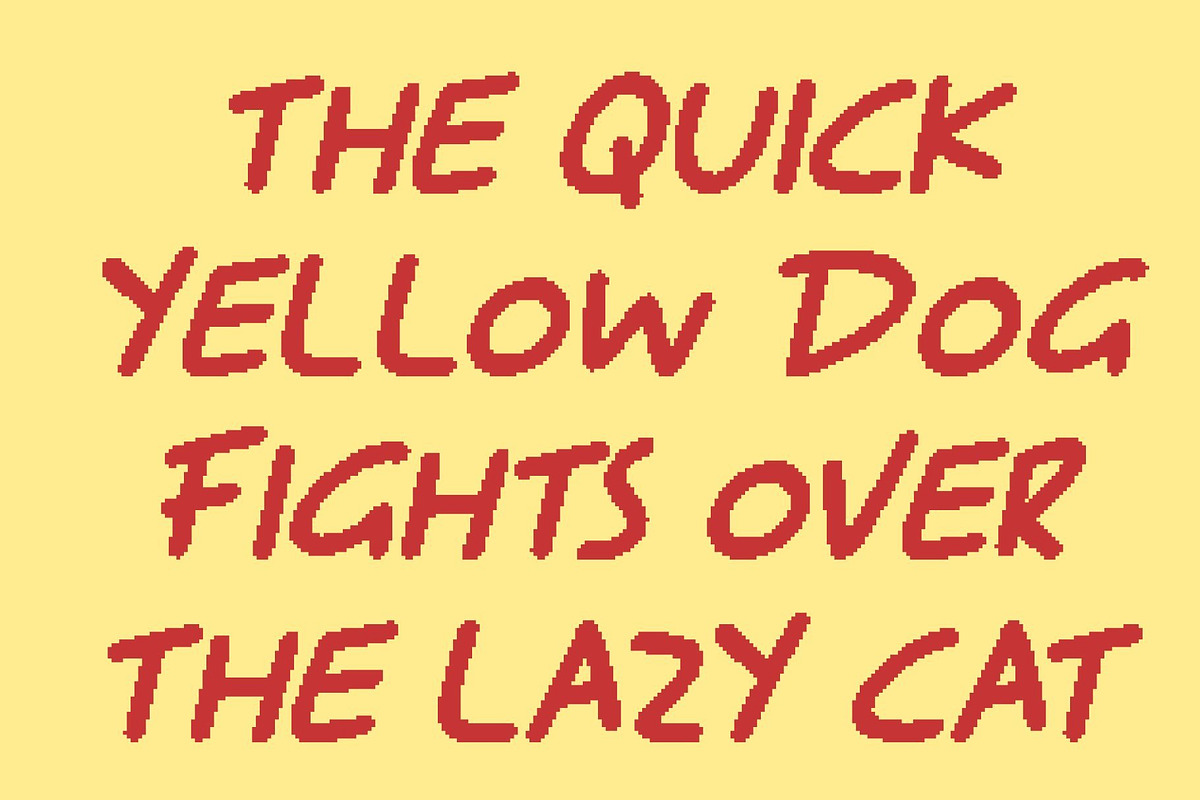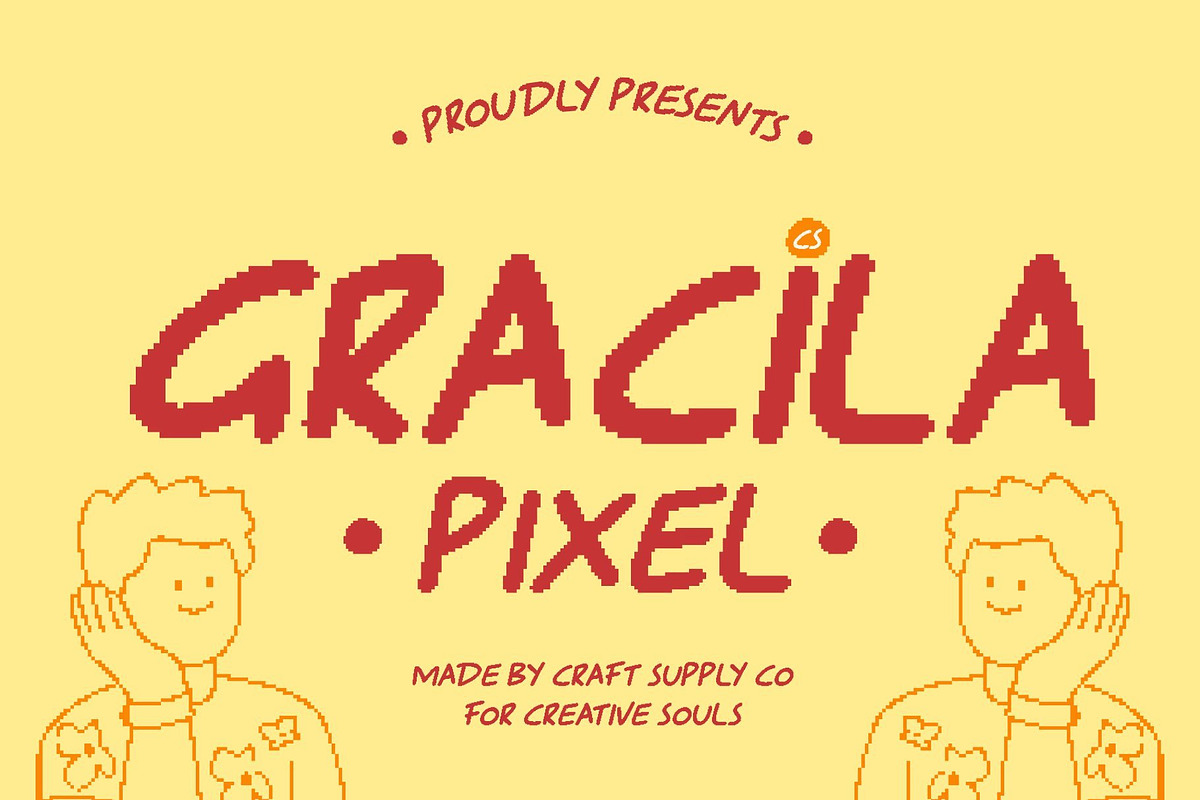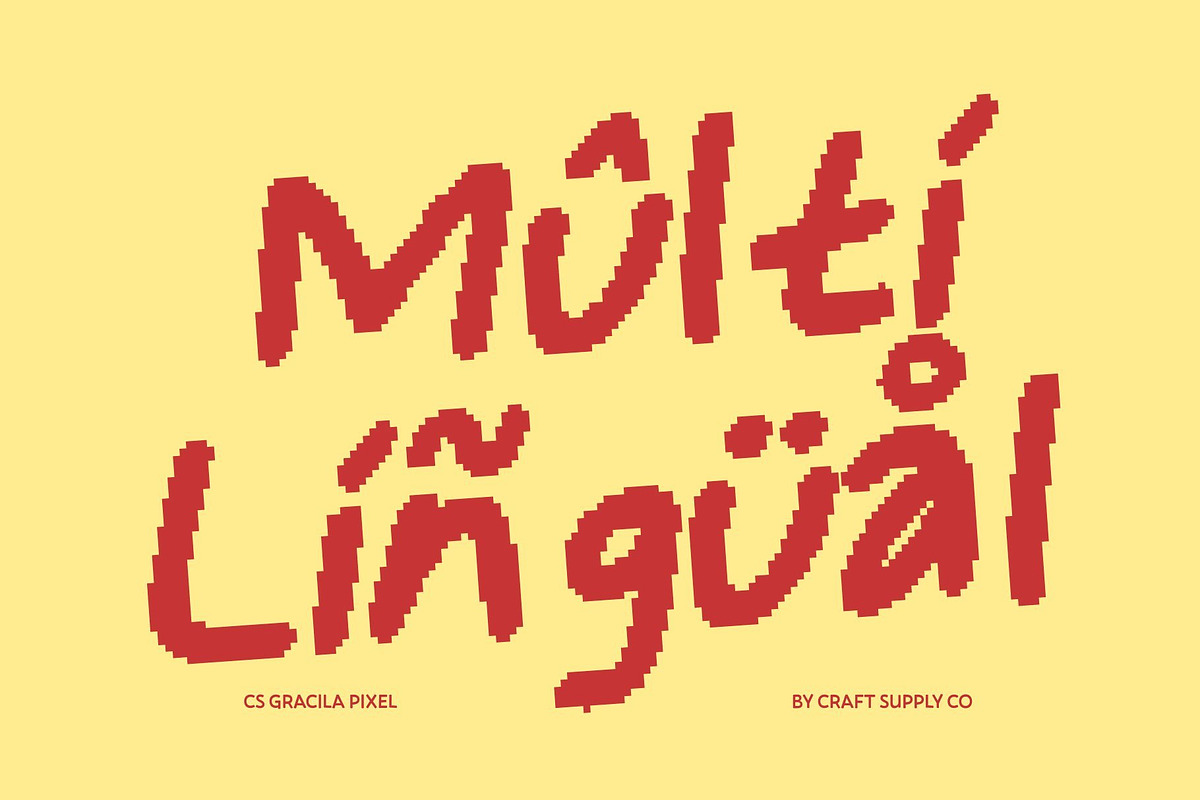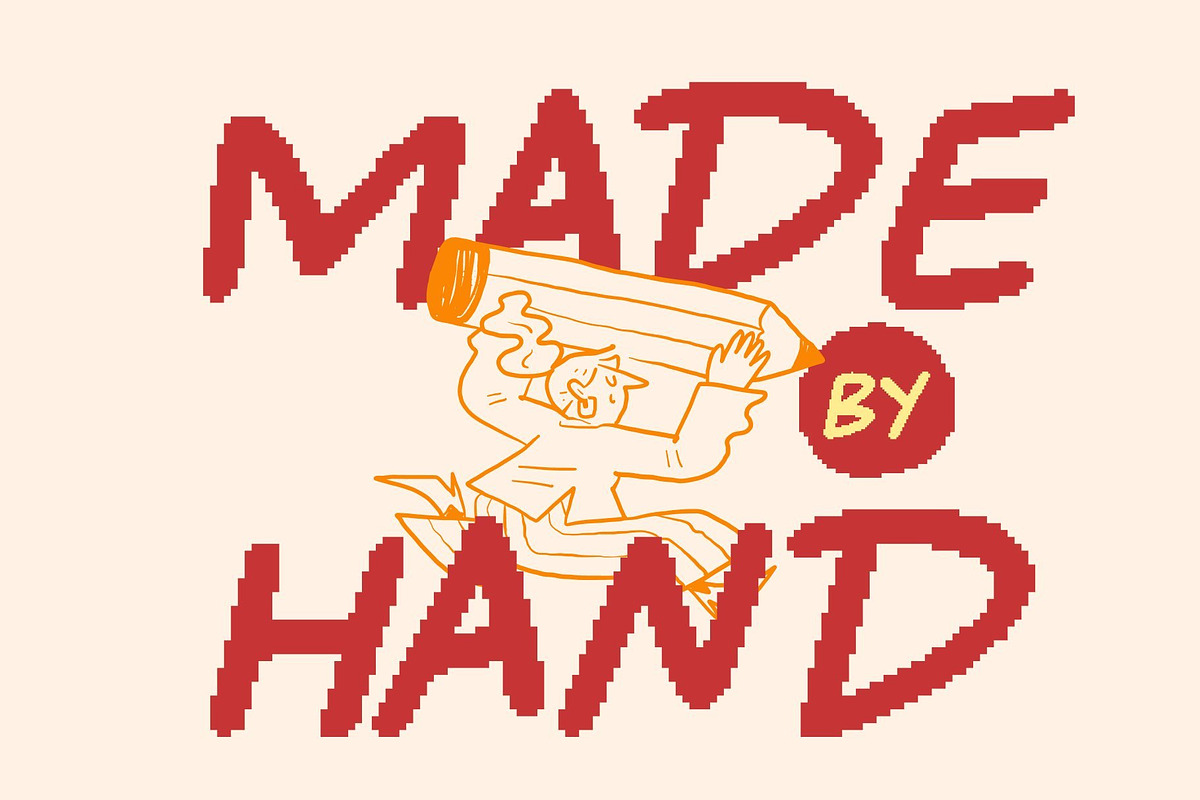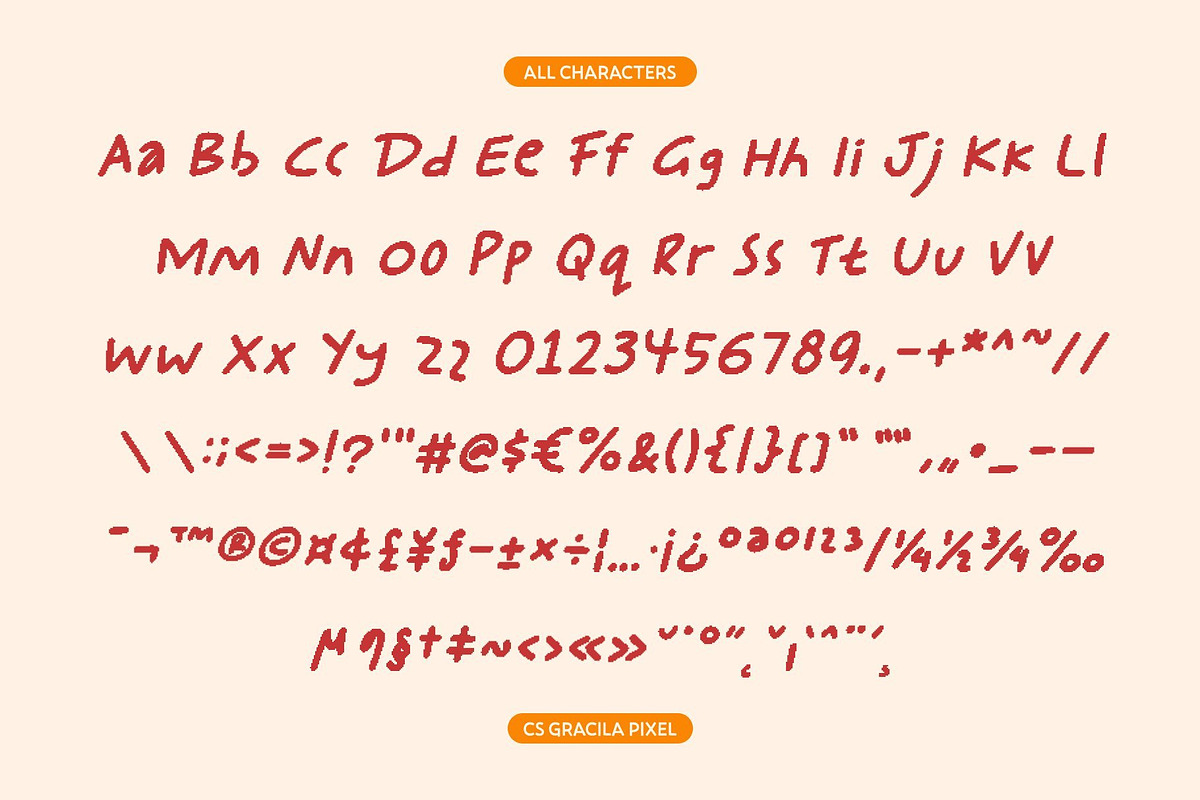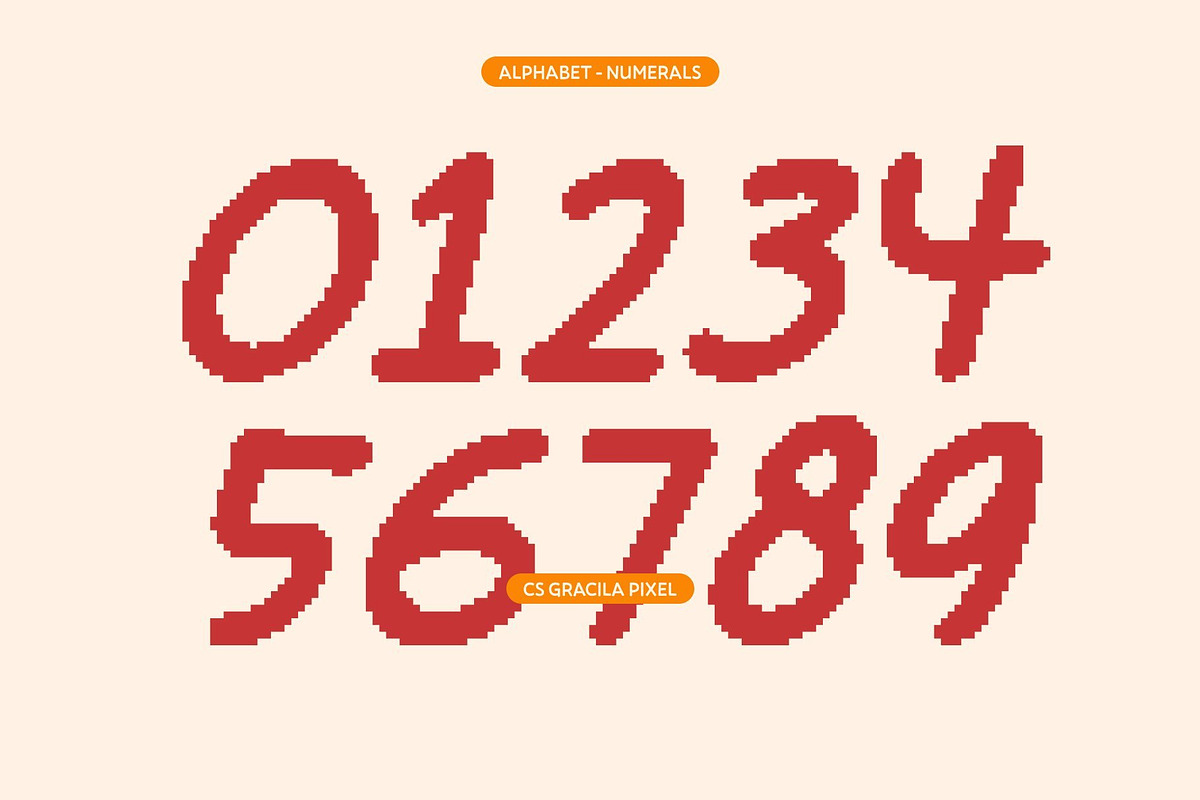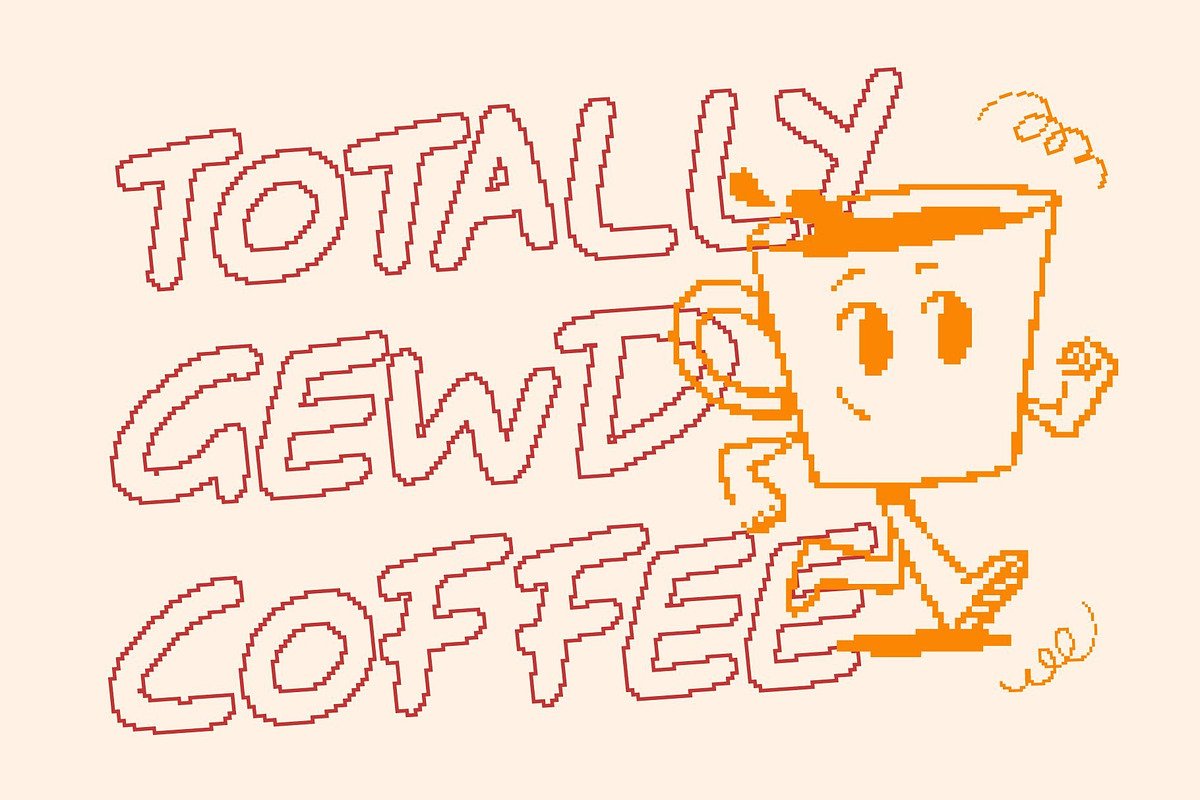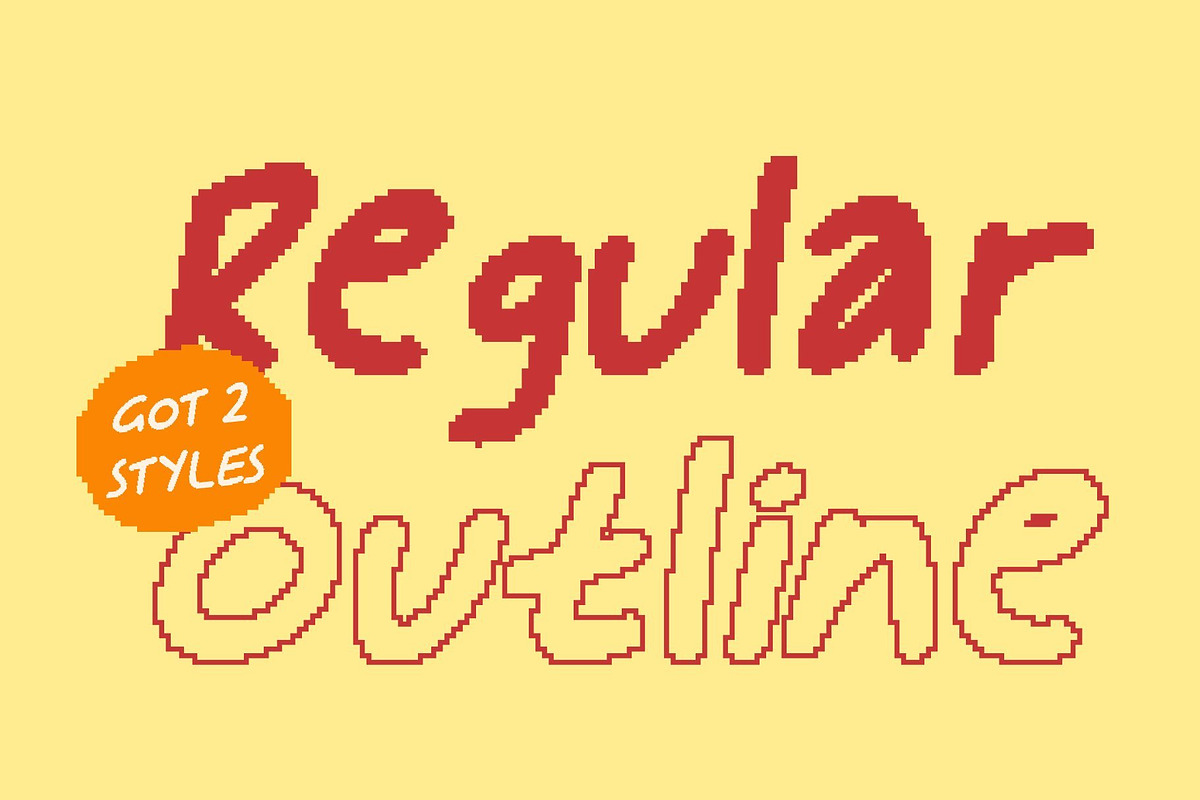
CS Gracila Pixel
CS Gracila Pixel – Handwritten Style with Youthful Digital Playfulness
Bold Pixel Handwritten Expression with Dynamic Personality This is a bold, playful handwritten display font designed to infuse energy and youthful charm into every design. Its confident strokes and naturally expressive pixel-aligned shapes create a vibrant, lively handwritten feel that stands out effortlessly. With its dynamic personality, it adds bursts of creativity and joy wherever it’s used, perfect for designers aiming to spark excitement through typography.
Playful Pixel Shapes for a Cheerful, Youthful Look The font’s playful curves and informal structure give it a bright, approachable character. Each letter flows with spontaneity and digital precision, capturing the spirit of carefree handwriting. This cheerful rhythm makes your text feel friendly, inviting, and full of life ideal for projects conveying positivity and youthful energy.
Bold Strokes for Strong Visual Impact This font’s bold weight ensures maximum visibility and presence. Expressive lines grab attention instantly while maintaining a warm, handcrafted feel. The balance of boldness and playfulness makes it versatile, allowing designs to stand out without losing charm or readability.
Perfect for Fun Projects and Creative Layouts Ideal for playful branding, kids’ themes, posters, event designs, packaging, and social media content, this font brings energy and character to every project. Use it for cheerful titles, expressive quotes, or imaginative visual storytelling that feels lively, friendly, and digitally polished.